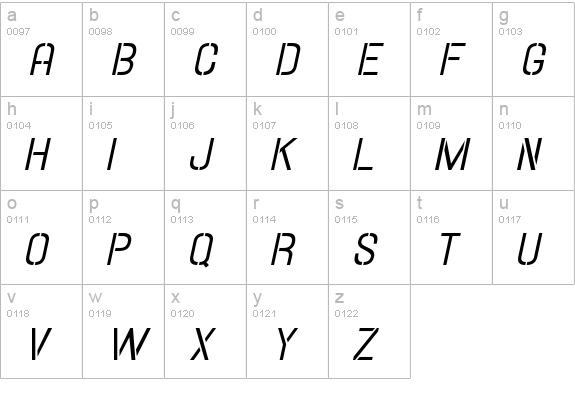
Hallandale Stencil Italic JL is a distinctive, italic variant in the Hallandale typeface family \xE2\x80\x94 well suited to design and typography projects.
Hallandale Stencil Italic JL is a visually captivating font that effortlessly combines elegance and modernity. Its sleek and sophisticated design makes it the perfect choice for any project that requires a touch of sophistication and style. The italicized letterforms add a sense of movement and dynamism to the font, making it stand out from the crowd. This font is not only visually stunning, but it is also incredibly versatile. Whether you need to create eye-catching headlines, stylish logos, or sleek branding materials, Hallandale Stencil Italic JL will undoubtedly exceed your expectations. Its clean lines and well-defined shapes make it highly legible, ensuring that your message is conveyed with clarity and impact. One of the best aspects of Hallandale Stencil Italic JL is that it is available for free download at FontsMarket.com. This means that you can easily access and incorporate this exceptional font into your design projects without any hassle. Whether you are a professional designer or a creative enthusiast, this font offers an incredible opportunity to elevate your work and make a lasting impression. So, why wait? Download Hallandale Stencil Italic JL today and unleash its full potential in your next design endeavor. With its striking aesthetic and free availability, this font is a must-have for anyone looking to add a touch of elegance and modernity to their creations.